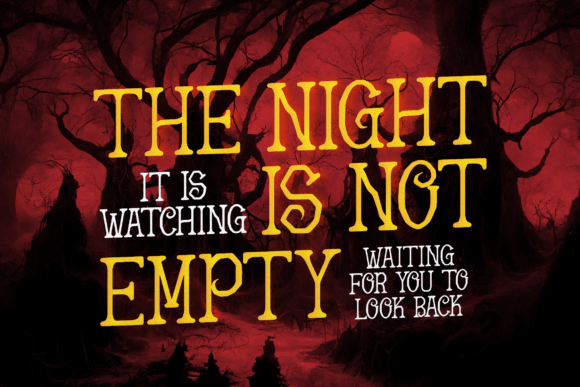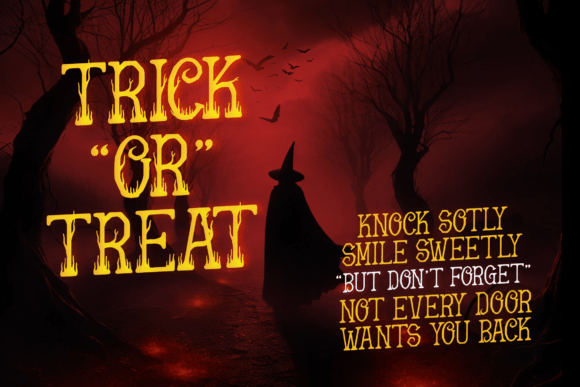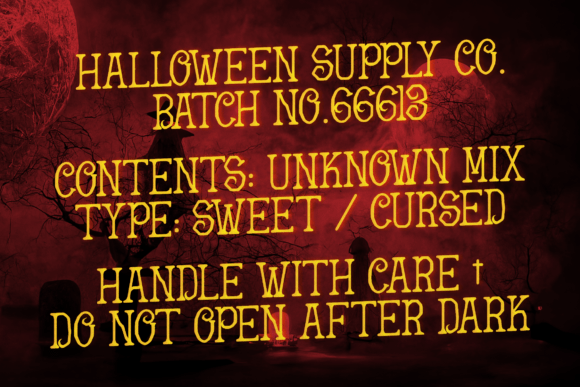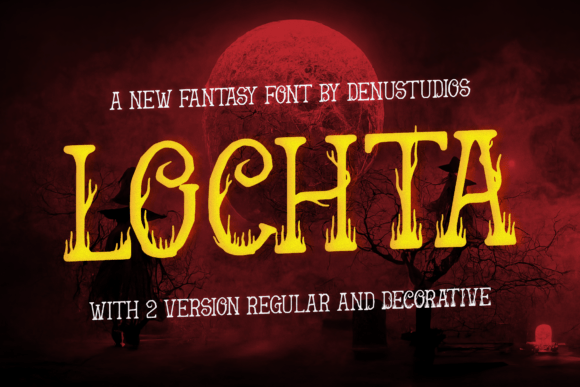
Introduction to Lochta Font
Unleash the magic of the shadows with Lochta, a spellbinding fantasy font designed to bring your most mystical visions to life.
Characterized by its haunting, vine-like terminals and jagged, atmospheric silhouettes, Lochta perfectly captures the essence of dark folklore and ancient sorcery It is an exceptional choice for fantasy book covers, Halloween branding, RPG game interfaces, and cinematic movie titles.
Key Features of Lochta Font
Why Choose Lochta Font?